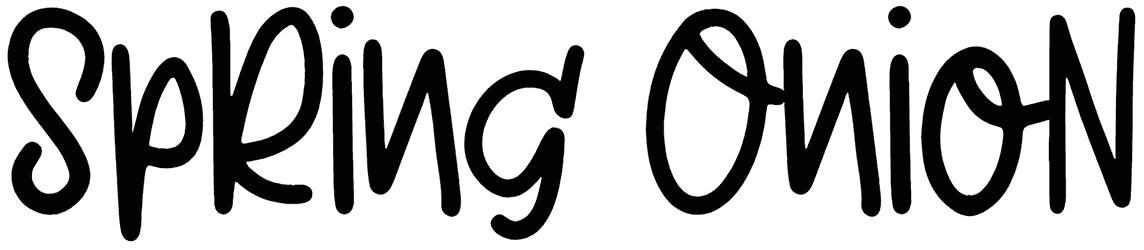
Spring Onion Font
Here we come again to have the honor of introducing a mind-blowing script font such as Spring Onion that offers well-rounded and curved letters.
Since we all know that this masterpiece carries a sense of personalization, comfortability, and captivation, it might look brilliant on billboards, product packaging, covers, or social media posts. We have provided dozens of various fonts in our archive for your convenience, so don’t hesitate to visit our glamorous collection.